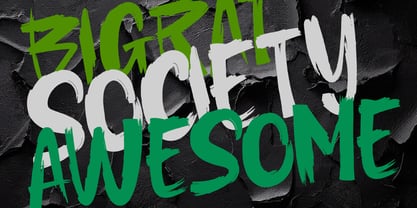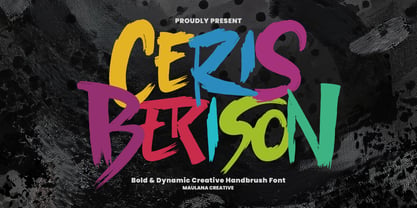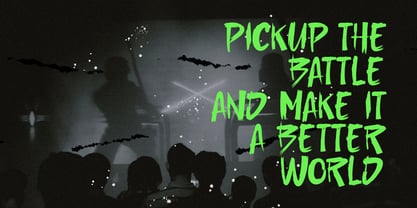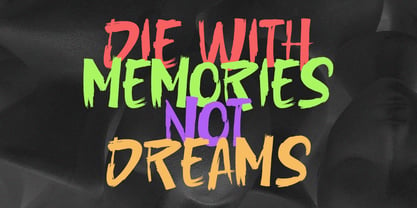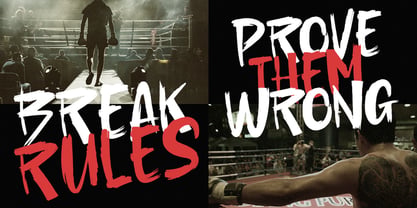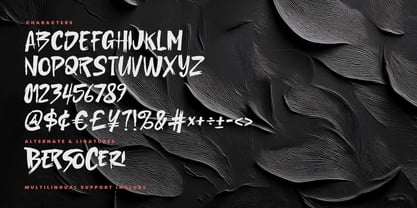
MC Ceris Berison
by Maulana Creative
The MC Ceris Berison Font Family was designed by Gilang Maulana and published by Maulana Creative. MC Ceris Berison contains 1 styles. More about this family
Ceris Berison is a fiercely bold and dynamic handbrush font designed to make an instant, unforgettable impact. Crafted with a confident, raw brush stroke, this typeface embodies energy, movement, and an unapologetic attitude. It’s perfect for designers who need a font that shouts, not whispers. Ideal For: - Action & Sports branding, and merchandise (e.g., boxing, fitness, extreme sports). - Streetwear & Apparel design that demands attention. - Bold Quotes and social media graphics with a grunge or rebellious vibe. - Movie Titles, Album Covers, and high-impact headlines. Key Features: - Full Uppercase characters - Numerals, Punctuation, and Multilingual Support included. - Alternates and Ligatures for truly custom and authentic hand-painted looks.